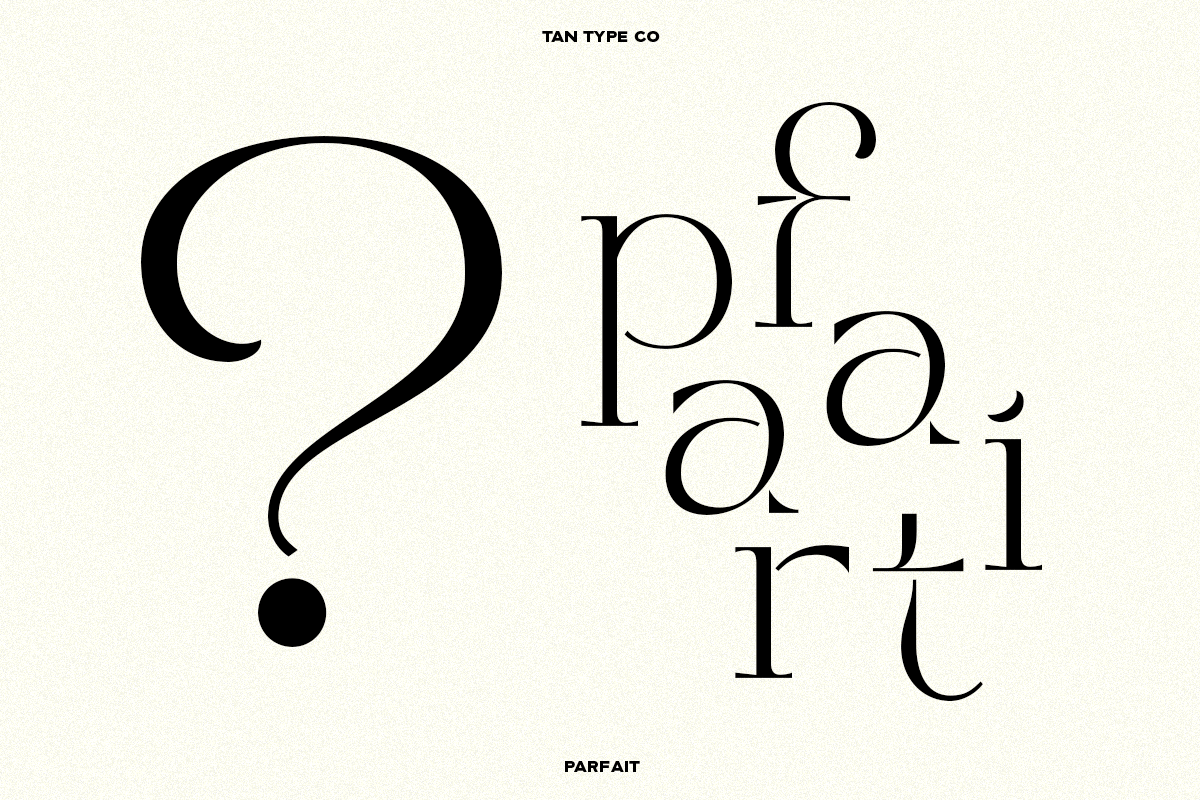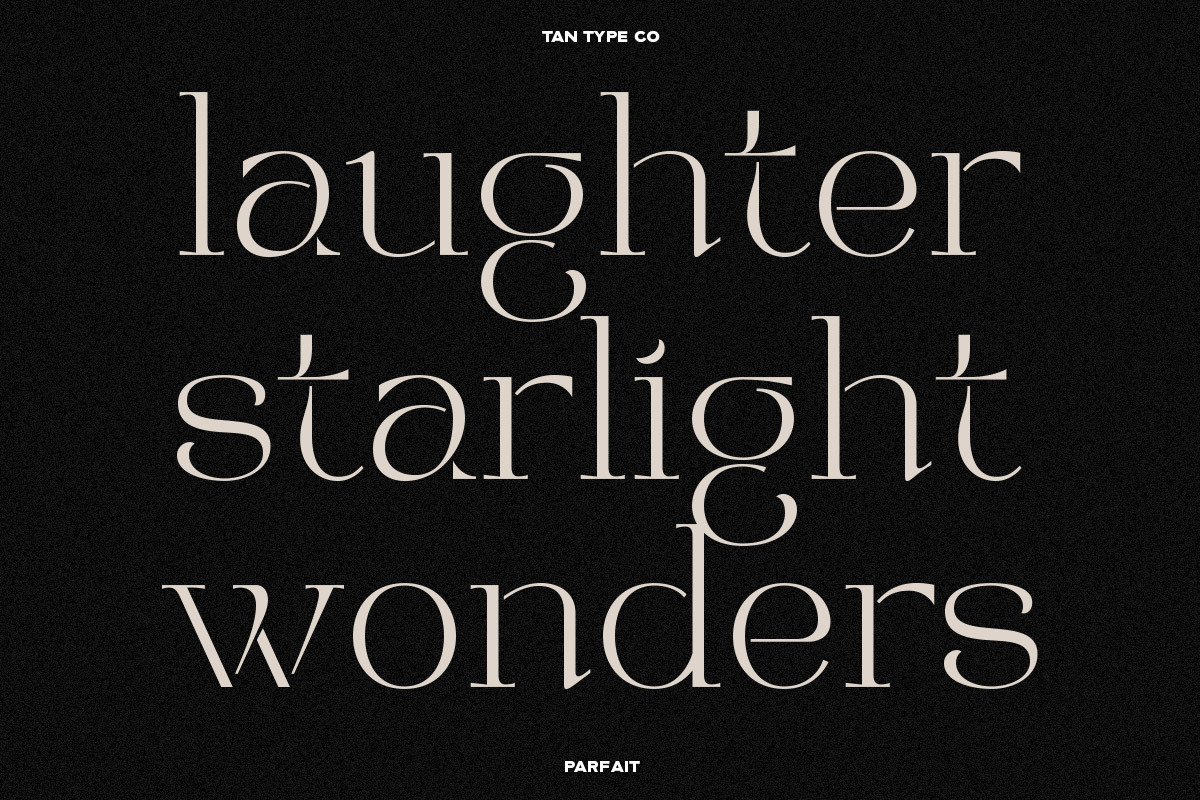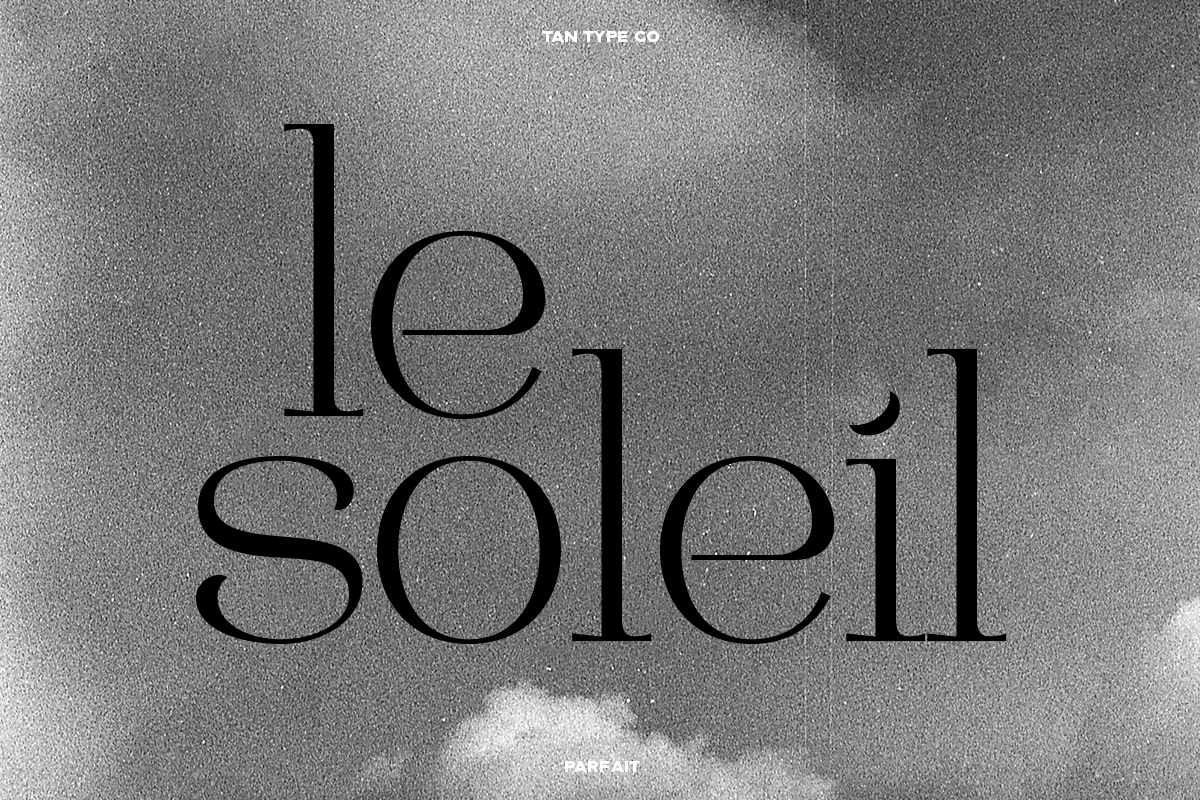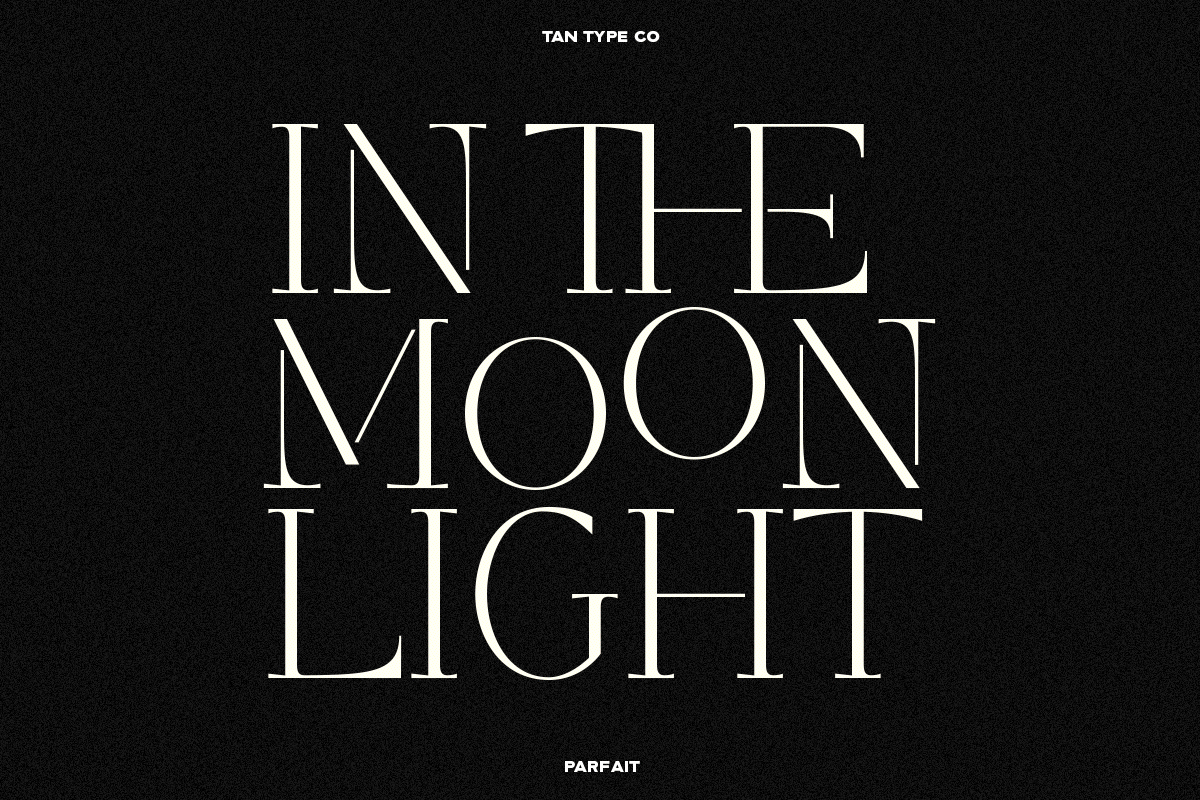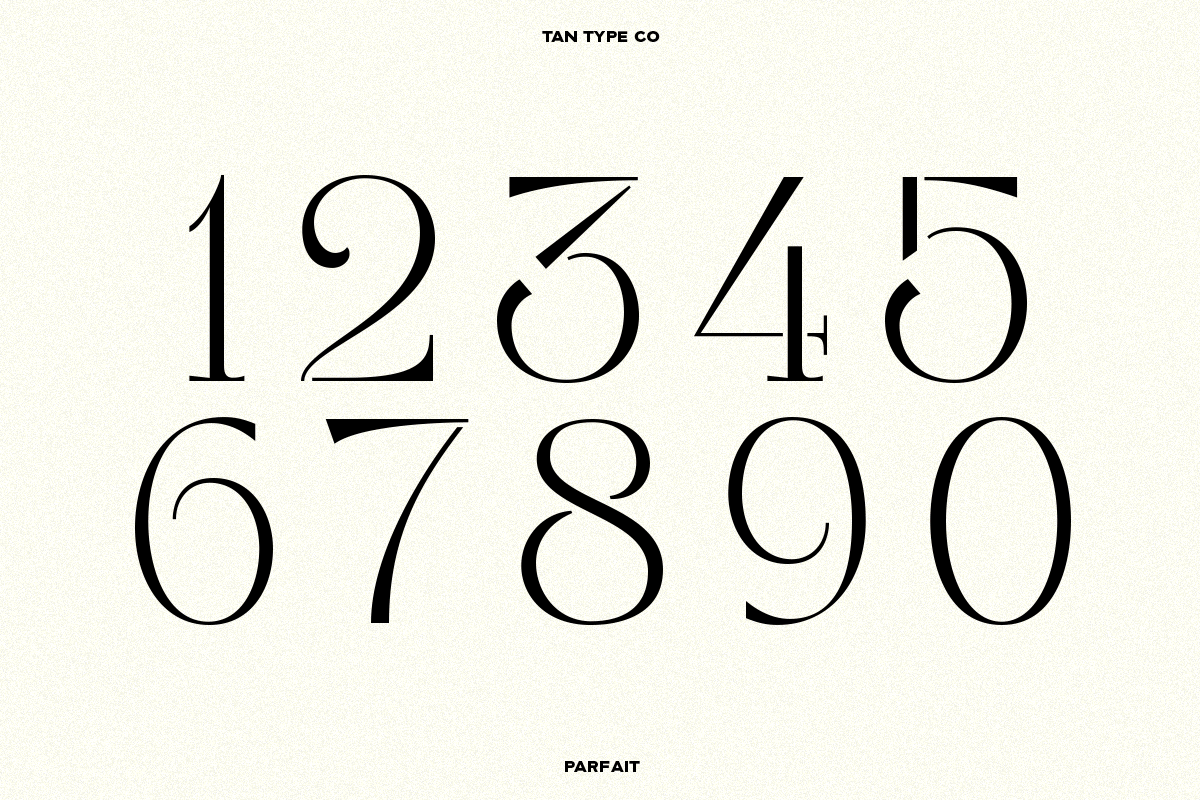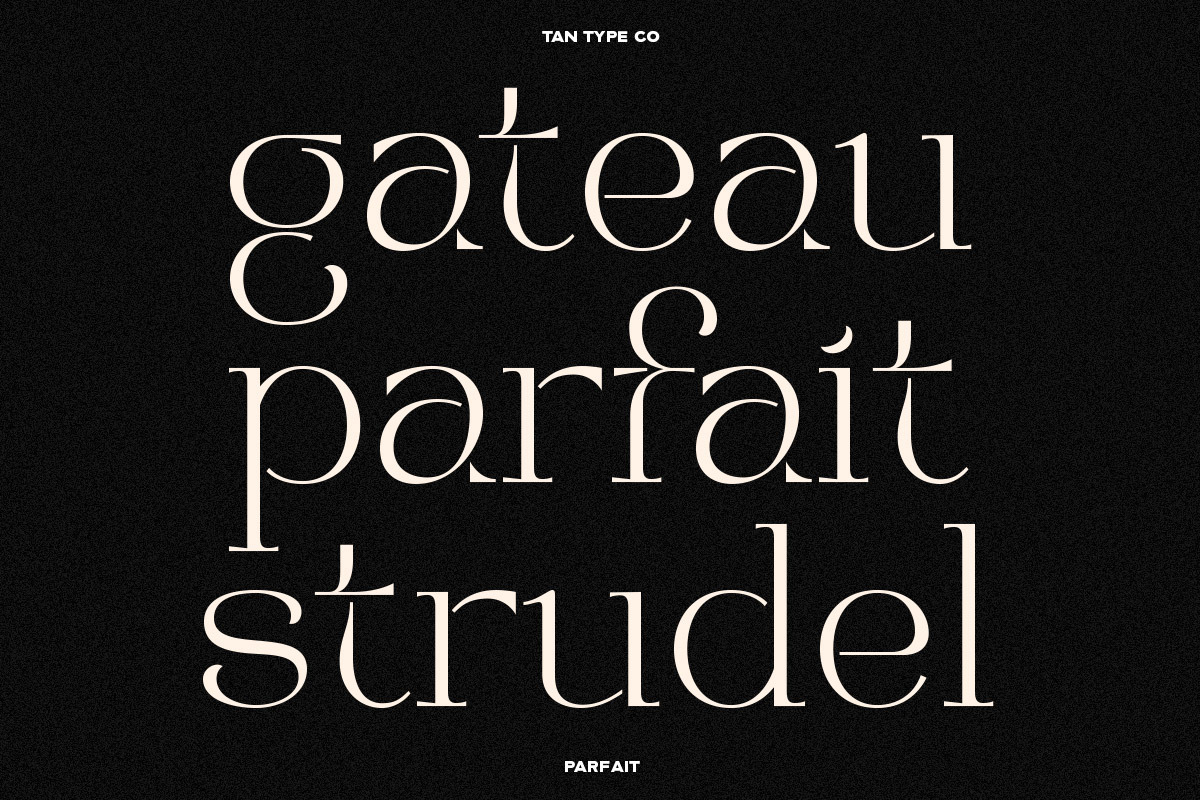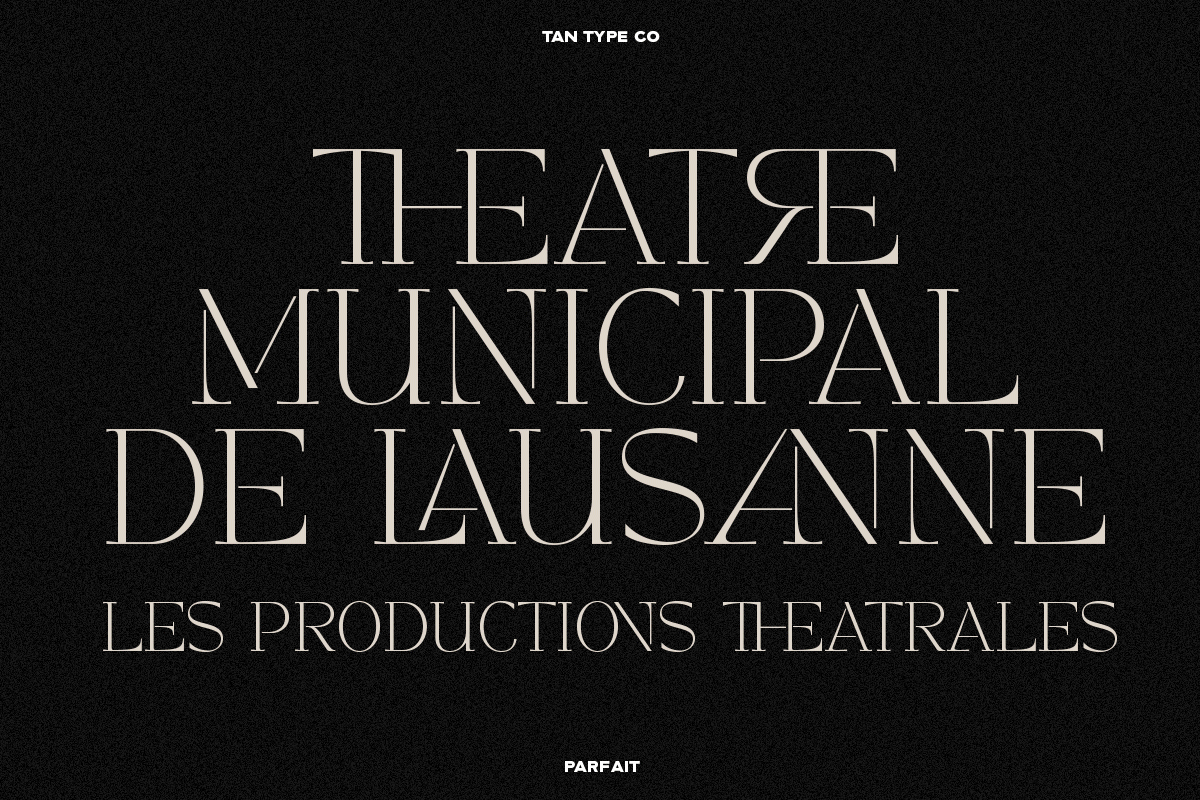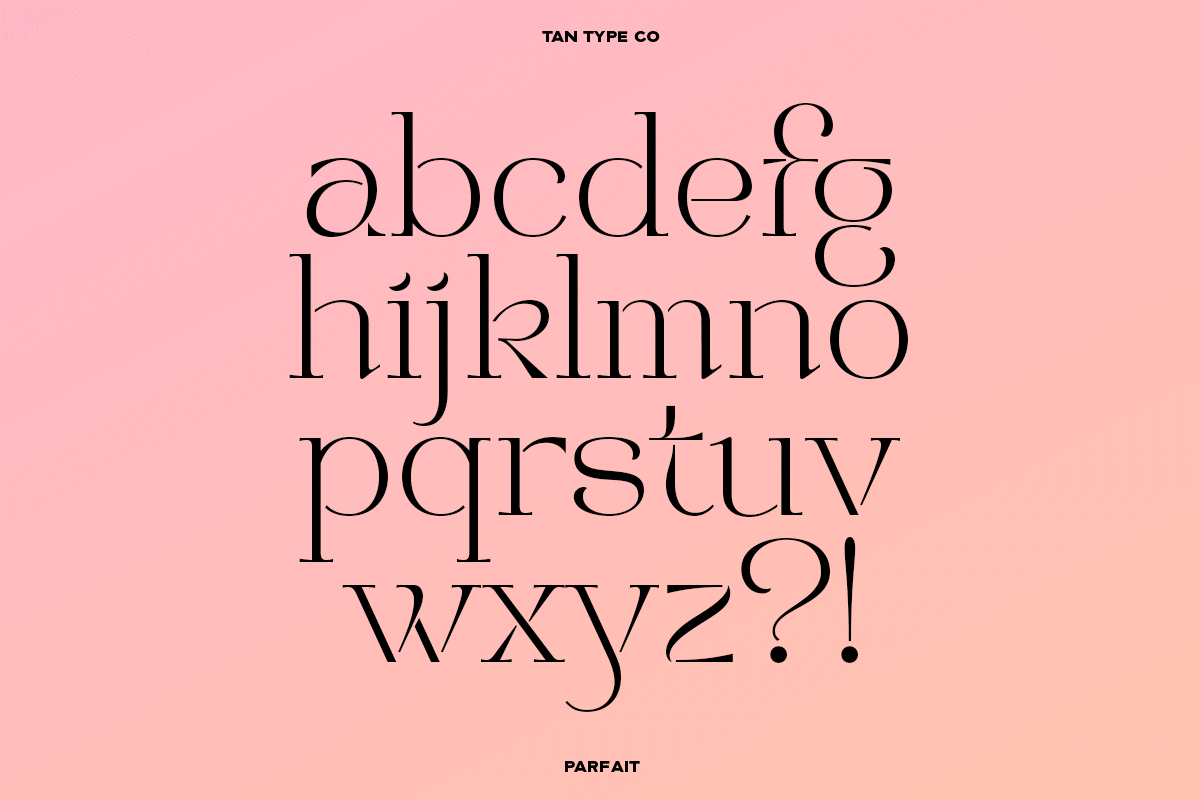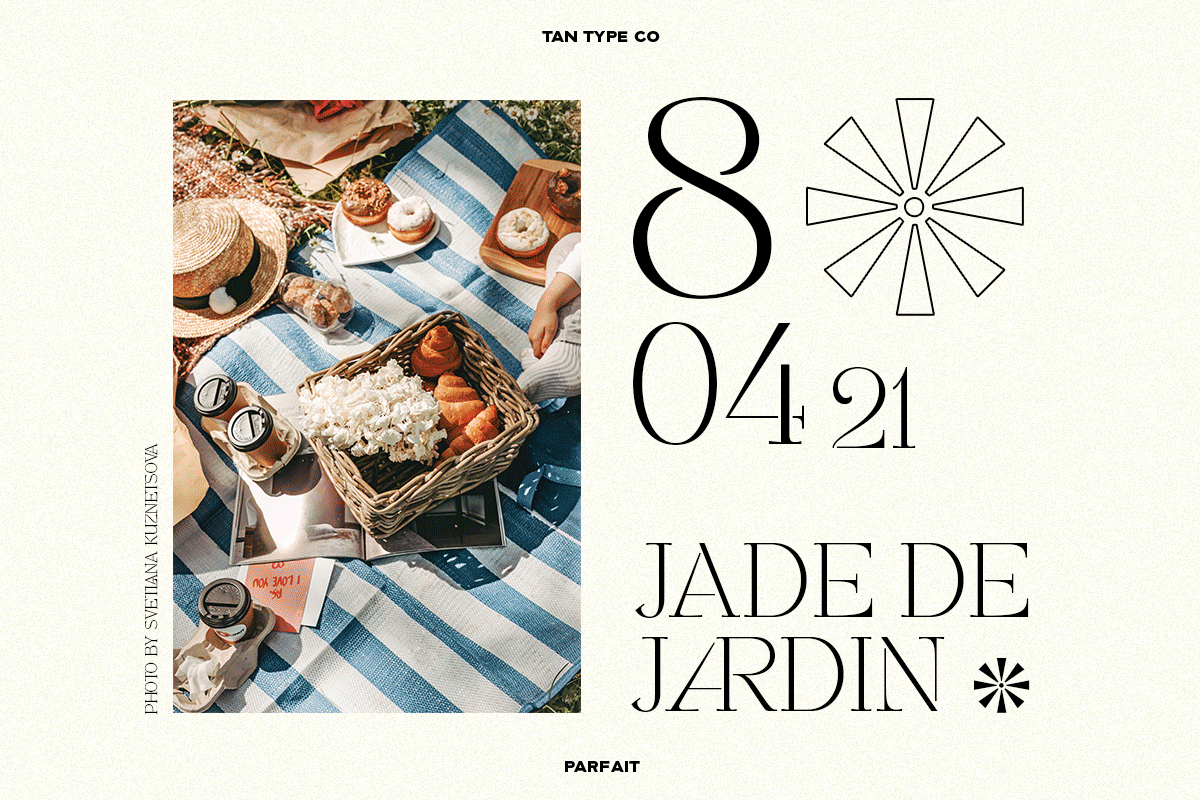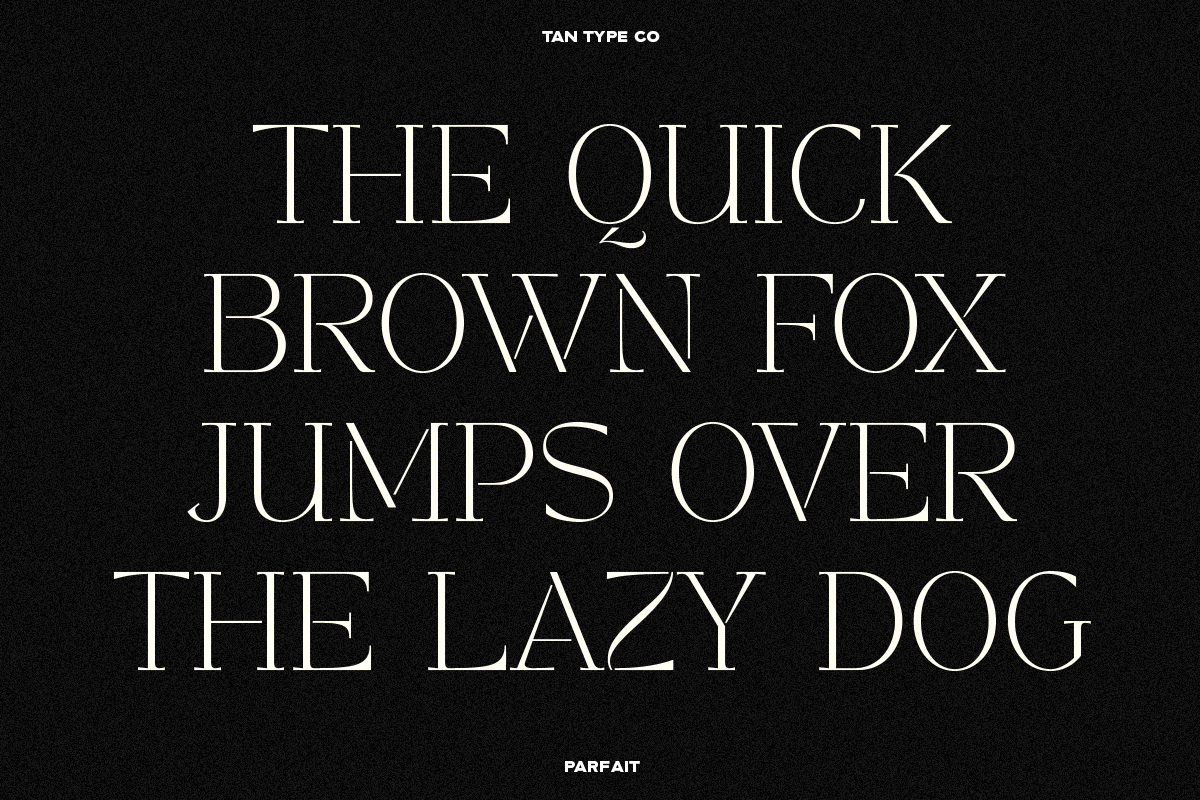
TAN - PARFAIT
TAN - PARFAIT is a stencil serif. Classic with a contemporary twist. From afar it looks like your typical serif, but the devil is in the detail, take a closer look and see for yourself. Perfect for those who want to keep it simple yet alluring. It has lot of ligatures to keep the fun going.